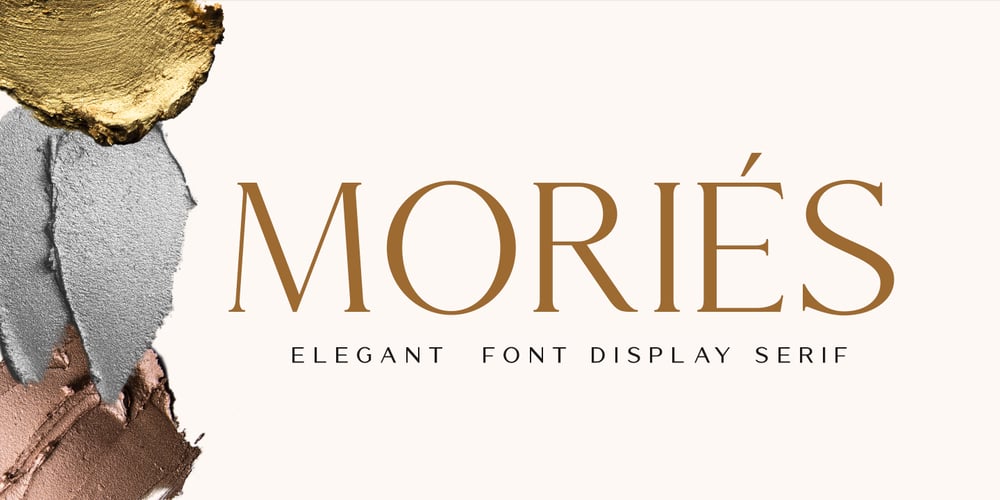
Mories Font Family was designed by Abdul Malik Wisnu and published by MlkWsn. Mories contains 3 styles and family package options. Mories is an elegant display serif with unique letter shapes to complete any designs, especially in fashion, branding, and for logos.